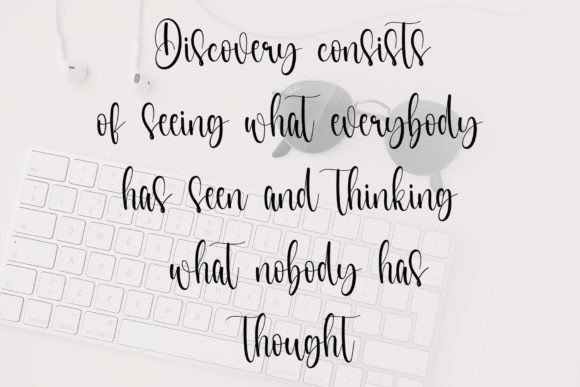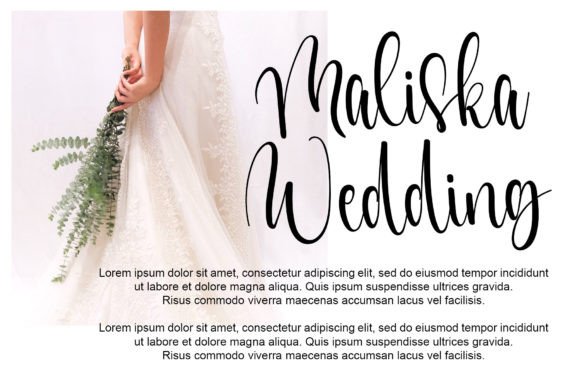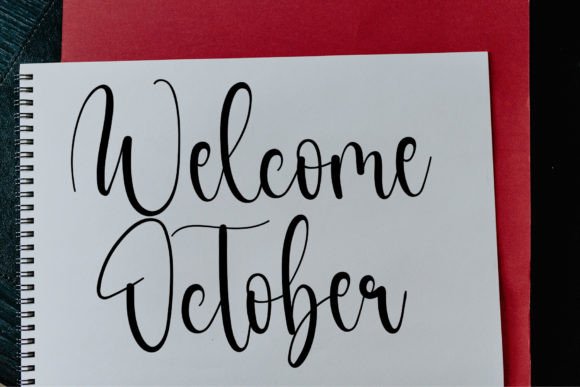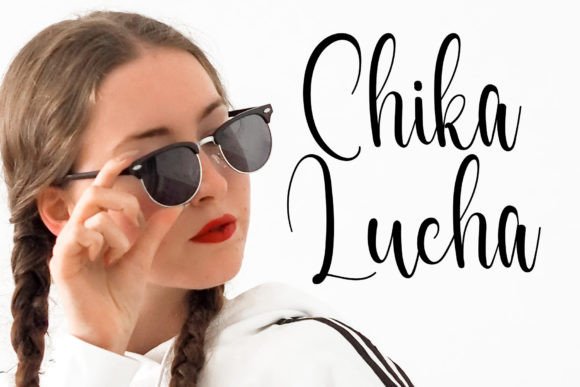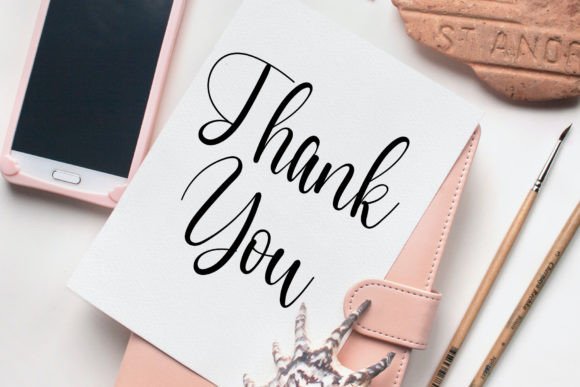
Elegant Font: Elevate Your Designs with Sophistication
In the world of typography, fonts play a crucial role in conveying the tone and personality of a design. For designers and crafters seeking to add a touch of sophistication to their work, the Elegant Font is an excellent choice. This unique, round lettered handwritten font is carefully crafted to produce the desired results, making it perfect for a wide range of applications.
What Makes Elegant Font Stand Out?
The Elegant Font is distinguished by its elegant and refined appearance, characterized by rounded letters that exude a sense of luxury and poise. Its carefully crafted design ensures that the font is both aesthetically pleasing and highly legible, making it suitable for use in various contexts, from titles and invitations to letters and other creative projects.
Key Features of Elegant Font
- Unique and Refined Design: The Elegant Font boasts a distinctive, round lettered style that sets it apart from more traditional fonts.
- High Legibility: Despite its elegant appearance, the font is remarkably clear and easy to read, making it suitable for both headings and body text.
- Versatility: The Elegant Font can be used across a wide range of applications, including titles, invitations, letters, and more.
- Handwritten Touch: The font’s handwritten nature adds a personal and intimate feel to any design, making it perfect for projects where a touch of warmth is desired.
Applications of Elegant Font
The versatility of the Elegant Font makes it an invaluable asset for designers and crafters. Here are some of the many ways it can be used:
- Titles and Headings: Add a touch of elegance to your titles and headings, making them stand out in any design or document.
- Invitations and Announcements: Create beautiful and sophisticated invitations for weddings, parties, and other special occasions.
- Personal Letters: Add a personal touch to your letters and correspondence, making them feel more intimate and heartfelt.
- Branding and Packaging: Use the Elegant Font to create a distinctive and memorable brand identity that exudes sophistication and class.
- Digital and Print Media: Whether you’re working on a digital project or a print publication, the Elegant Font is sure to enhance the visual appeal of your work.
Tips for Using Elegant Font Effectively
To get the most out of the Elegant Font, consider the following tips:
- Pair with Complementary Fonts: Combine the Elegant Font with simpler fonts to create visual interest and hierarchy in your designs.
- Adjust Size and Color: Experiment with different sizes and colors to emphasize certain elements and create a balanced design.
- Use for Accent Text: Use the Elegant Font for accent text, such as titles or captions, to add a touch of elegance to your work.
The Elegant Font is a versatile and sophisticated typeface that can elevate any design or project. Its unique, round lettered style and high legibility make it perfect for a wide range of applications, from titles and invitations to letters and branding. By incorporating the Elegant Font into your work, you can add a touch of luxury and poise that is sure to impress. Whether you’re a designer, crafter, or simply someone who appreciates beautiful typography, the Elegant Font is an excellent choice for anyone looking to add a touch of sophistication to their work.